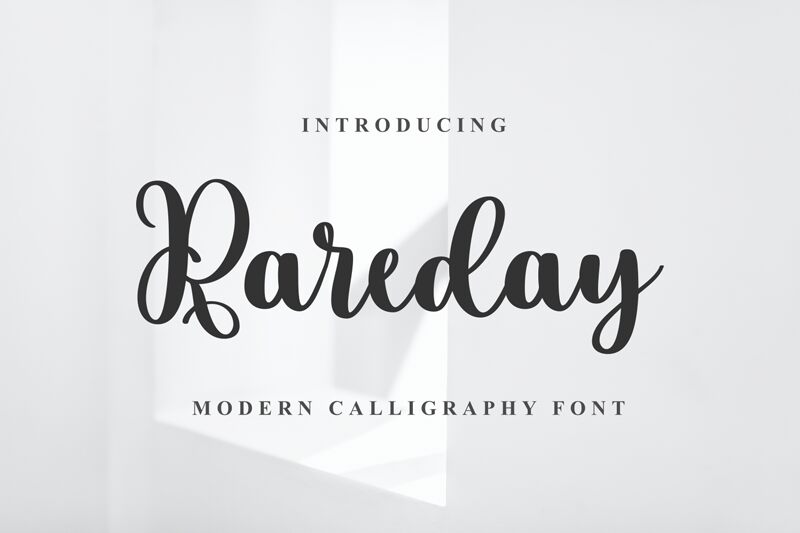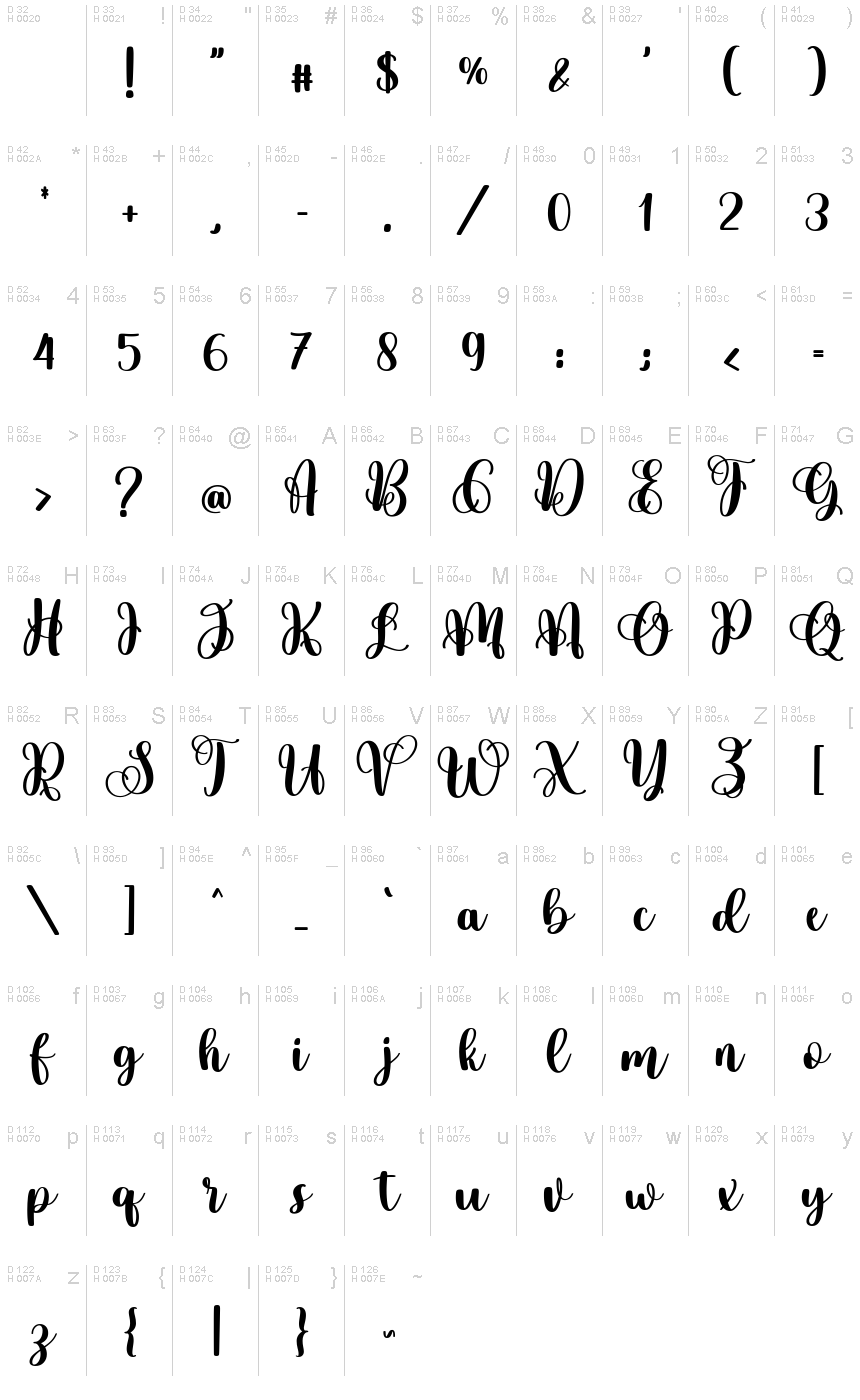
Rareday, crafted by the talented Makashi, is a font that encapsulates elegance and flair through its calligraphic and curly style. The fluidity of its strokes conveys a sense of sophistication and artistic expression, making it an exquisite choice for invitations, branding, and editorial design. Each letter in the Rareday typeface is designed with meticulous attention to detail, featuring delicate curves that mimic the beauty of traditional calligraphy with a modern twist.
The font's aesthetic appeal lies in its harmonious balance between ornate embellishments and readability. Its versatility allows it to be a standout choice for projects that require a touch of personalization without sacrificing clarity. Whether you're crafting wedding stationery, designing bespoke logos or elevating your marketing materials, Rareday offers an air of exclusivity and charm that can transform any creative endeavor into a work of art.